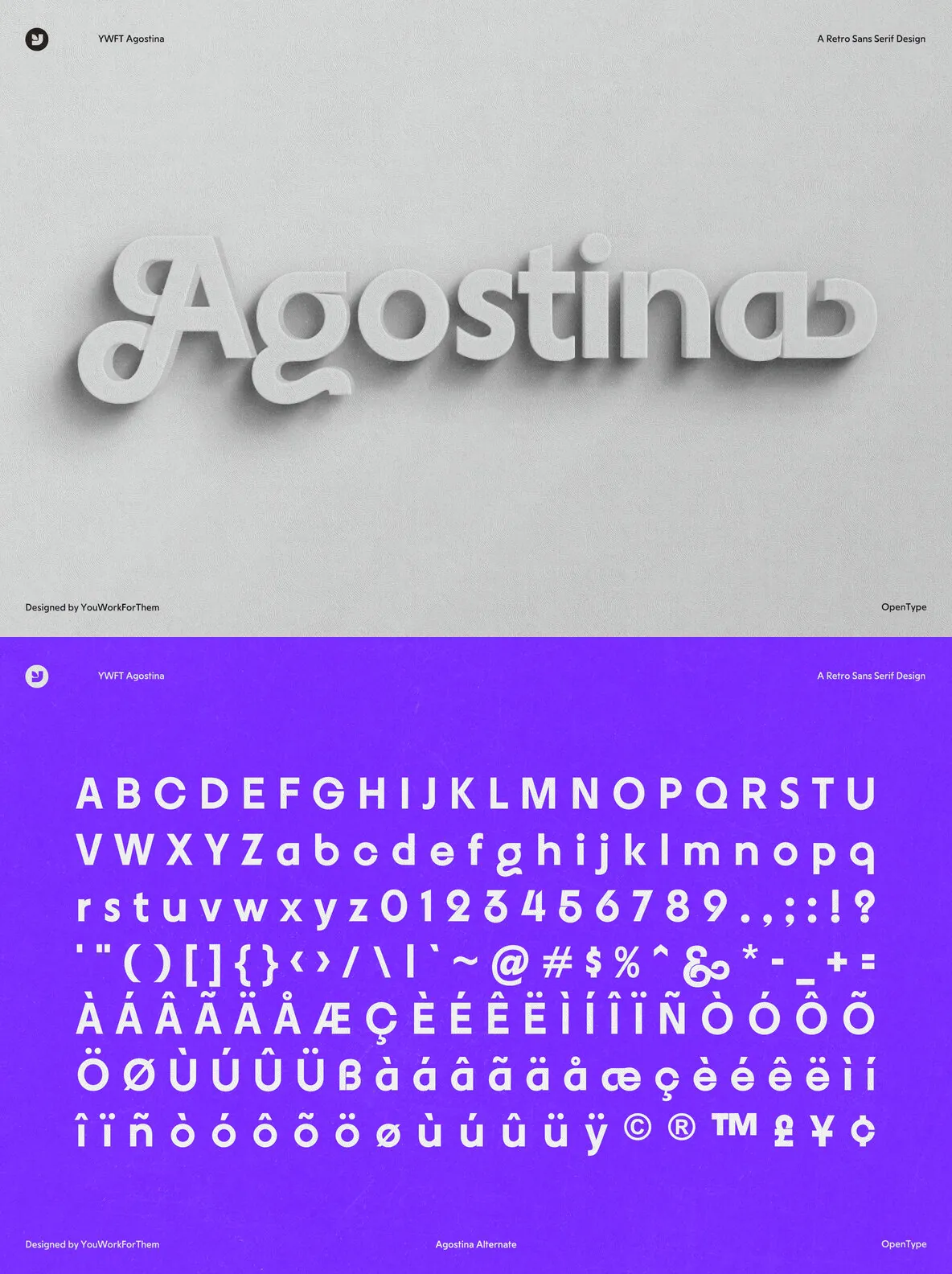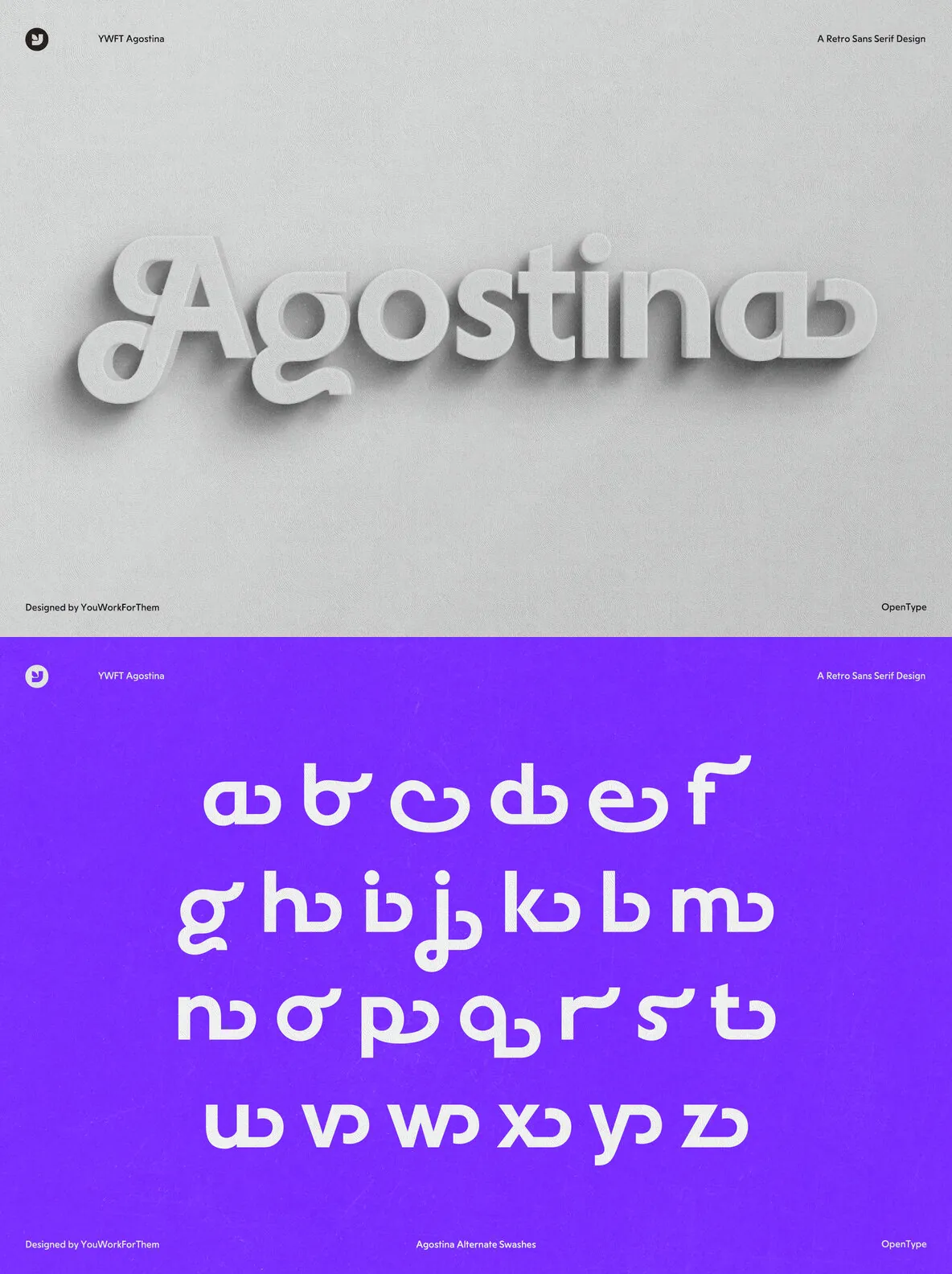
YWFT Agostina: A Versatile Sans Serif Typeface
YWFT Agostina embodies modern design with its distinctive sans serif style, tailored for graphic designers and marketing professionals. Its array of nearly 300 characters positions it as a standout font, integrating workhorse utility with unique aesthetic flair. Featuring elegantly designed beginning caps and ending lowercase swash letters, Agostina provides a seamless visual narrative ideal for contemporary projects.
Features
Contemporary Sans Serif Design
– Delivers a modern aesthetic.
Extensive Character Set
– Nearly 300 characters for versatile design use.
Elegant Swash Letters
– Offers beginning caps and ending lowercase options for dynamic visuals.
Opentype Features
– Ensures user-friendly access to swashes and alternates.
Professional Application
– Perfect for premium graphic and digital designs.
With its blend of sophistication and usability, YWFT Agostina serves as a comprehensive typography solution for those pursuing a refined yet functional style.